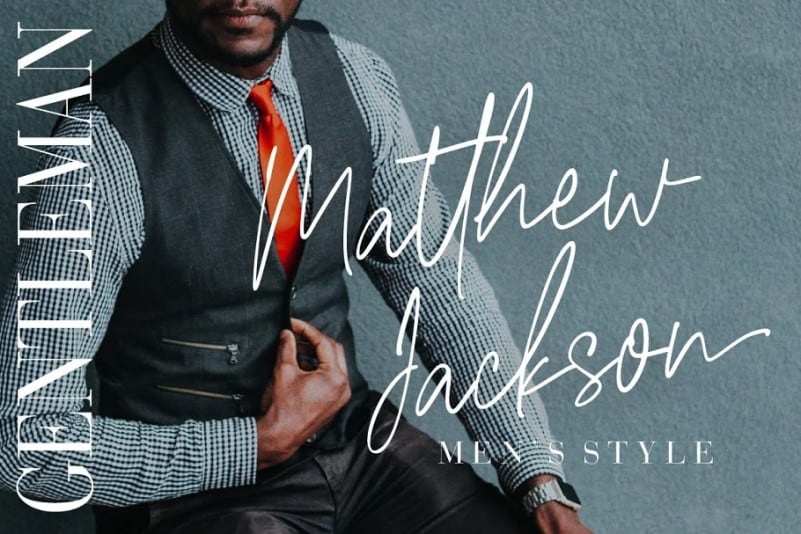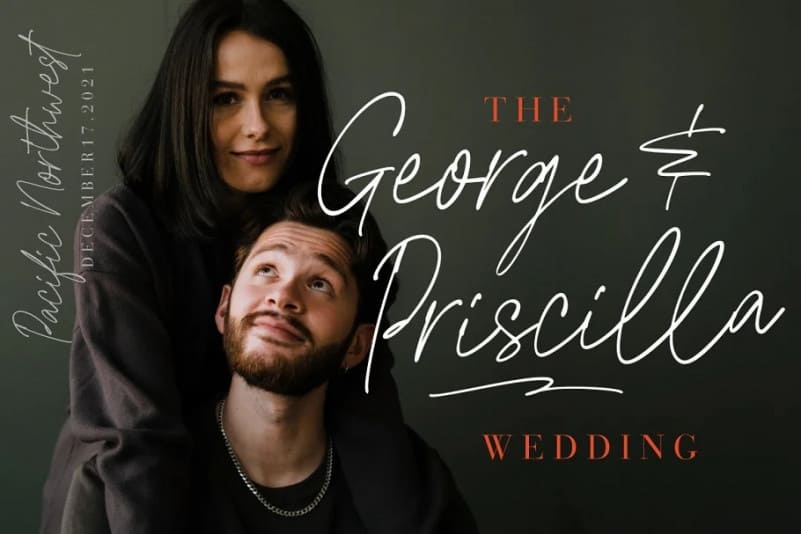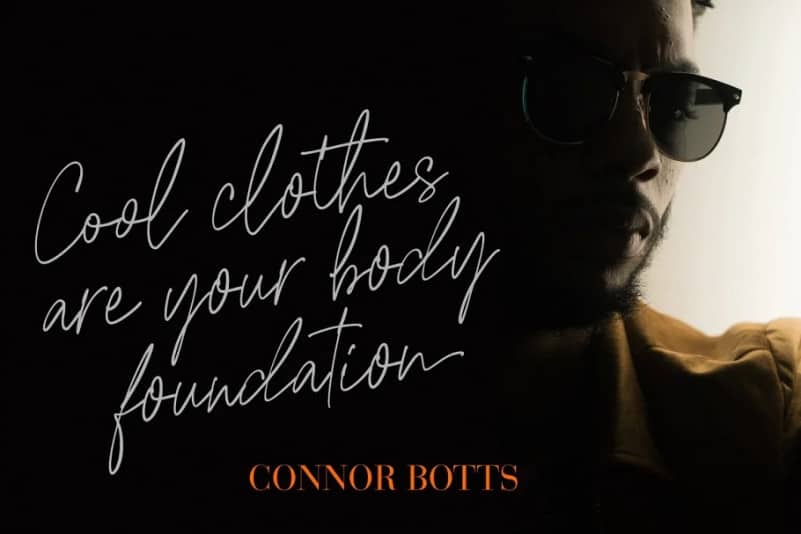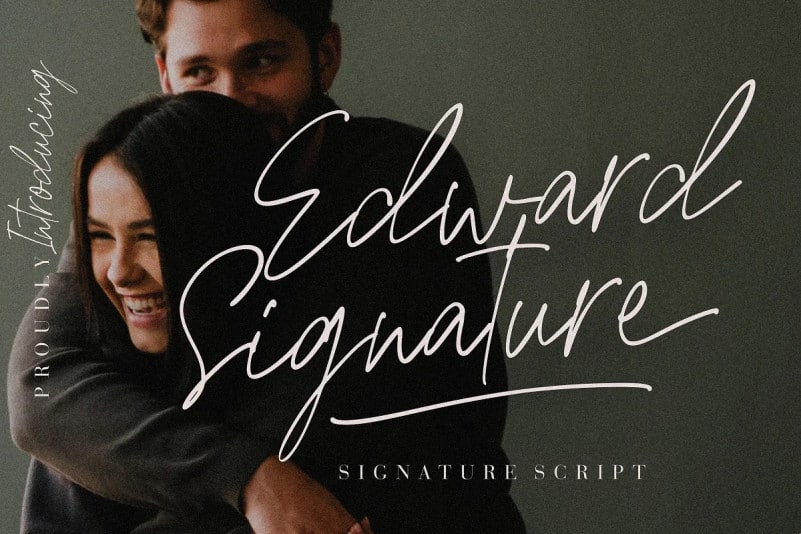
Edward Signature Script Font
Edward Signature Script Font is a handwritten typeface manufactured by Creatype Studio, classy look, and versatile style. Its smooth and natural lines would make your name or logo look elegant. Edward Signature is perfect for branding projects, logo, wedding designs, social media posts, advertisements, product packaging, product designs, label, photography, watermark, invitation, stationery and any projects that need handwriting taste.